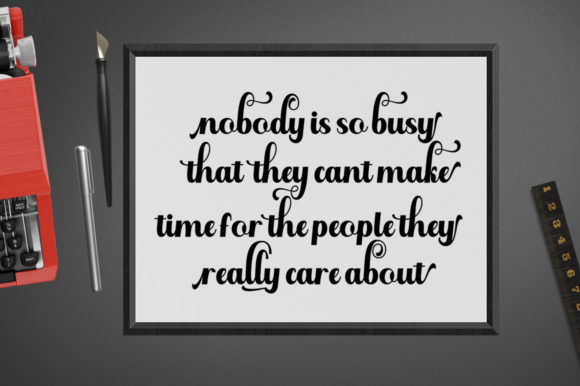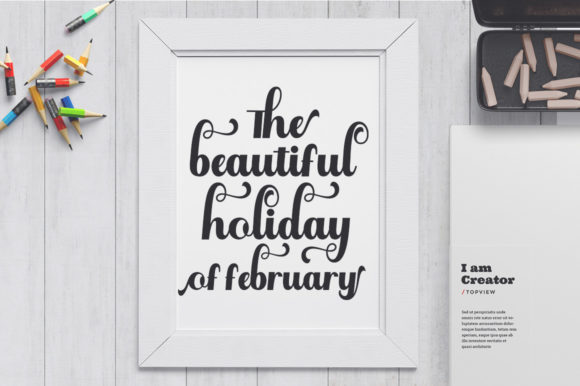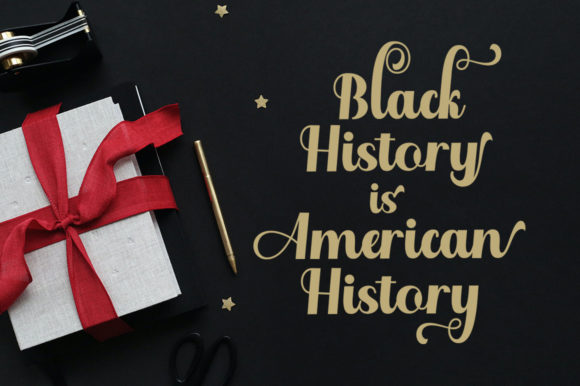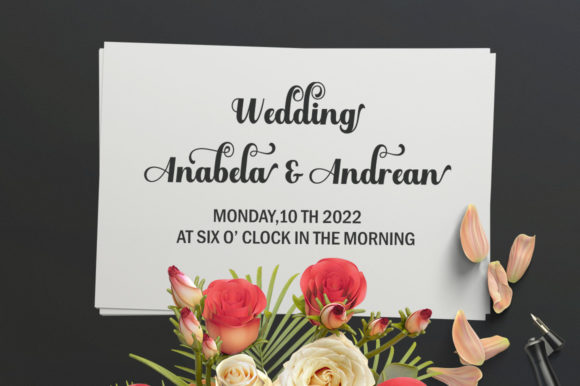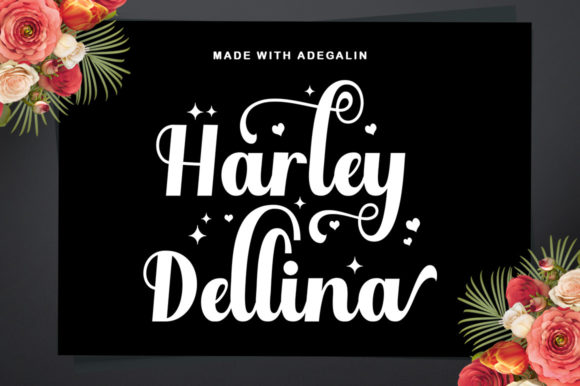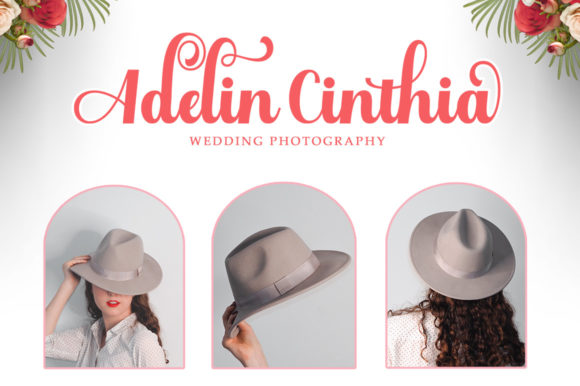
Introduction to Hello Adegalin Font
Hello Adegalin is a sophisticated handwritten font that’s great for delivering any message with confidence, authenticity and charm.
It will elevate a wide range of crafting ideas, from cards, to branding, labels and much more This font is PUA encoded which means you can access all glyphs and swashes with ease.
Hello Adegalin Font offers exceptional quality and versatility, making it a valuable addition to your design toolkit. Whether you’re creating for personal projects or commercial use, Hello Adegalin Font delivers professional results.